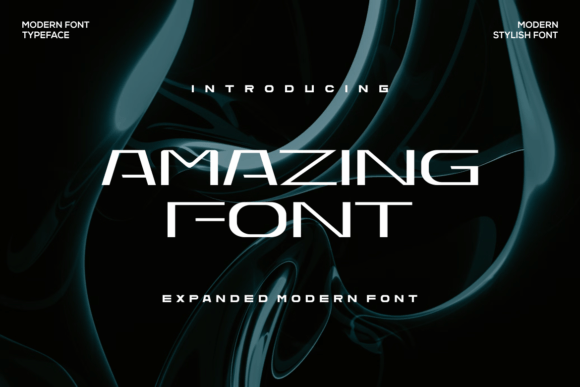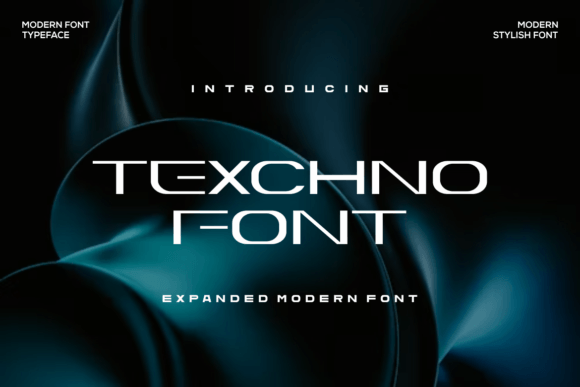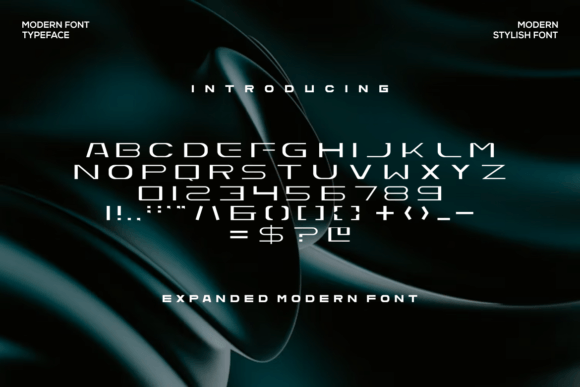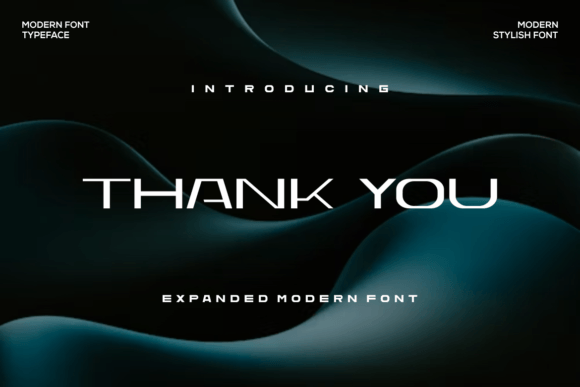
Unlock Your Creative Potential with Jihoca Font
Introducing Jihoca Font, a bold and authentic display font designed to take your branding projects to the next level. Whether you’re creating logos, t-shirt printing, or any other creative product, Jihoca Font is the perfect companion. Its versatility and modern design make it a valuable addition to any designer’s toolkit, offering endless possibilities for unique and eye-catching designs.
Jihoca Font Key Features
- Font Family: Jihoca Font is a sans-serif font family designed for digital use. It is available in various weights and styles.
- Unique Characteristics: Jihoca Font features a distinctive geometric shape and a clean, modern aesthetic, making it ideal for use in digital interfaces, branding, and advertising.
Review of Jihoca Font
Overall, I was quite impressed with the Jihoca Font, but like any font, it has its strengths and weaknesses. Here’s my honest review.
- ✨ Unique and Creative Design: Jihoca Font is definitely a one-of-a-kind font that stands out from the crowd. Its unique design elements and creative flair make it perfect for designers looking to add some personality to their projects.
- ✨ High-Quality Typography: The font is well-designed and the typography is top-notch. The letters are crisp, clear, and easy to read, making it perfect for use in a variety of contexts.
- ✨ Versatility: Jihoca Font is incredibly versatile and can be used in a range of applications, from logos and branding to digital displays and print materials.
- ⚠️ Limited Character Set: One of the main limitations of Jihoca Font is its limited character set. It only includes a basic set of letters and symbols, which can make it difficult to use in certain contexts.
- ⚠️ May Not be Suitable for Small Text: While the font looks great at larger sizes, it can become difficult to read at smaller sizes. This can make it less suitable for use in applications where small text is necessary.
I would definitely recommend Jihoca Font to designers looking for a unique and creative font. While it has some limitations, its strengths far outweigh its weaknesses. With a little creativity and planning, Jihoca Font can be a valuable addition to any design project.
Getting the Most Out of Jihoca Font
For optimal results, use Jihoca Font in bold or italic styles to add emphasis to your text. Experiment with different font sizes and combinations to create visually appealing designs.
Jihoca Font is ideal for creative projects such as posters, social media graphics, and branding materials. It’s also suitable for use in headings and titles due to its unique and eye-catching design.